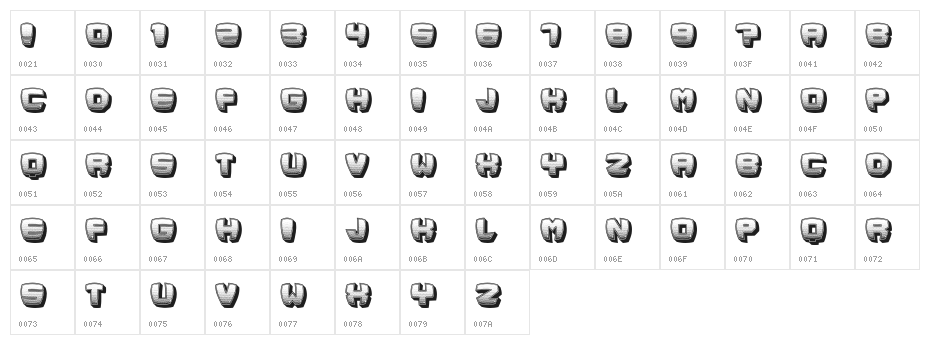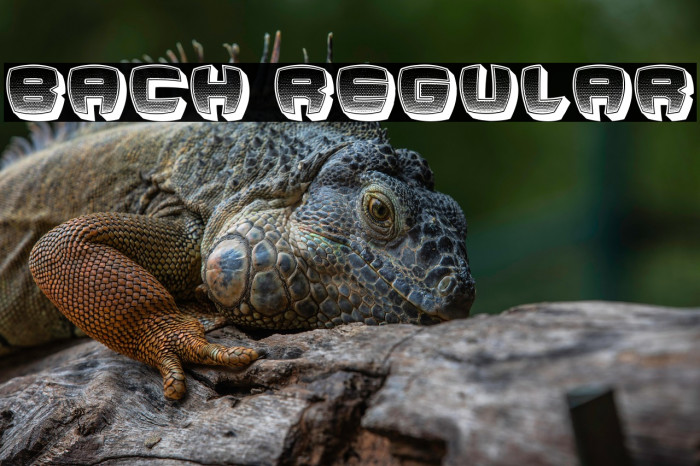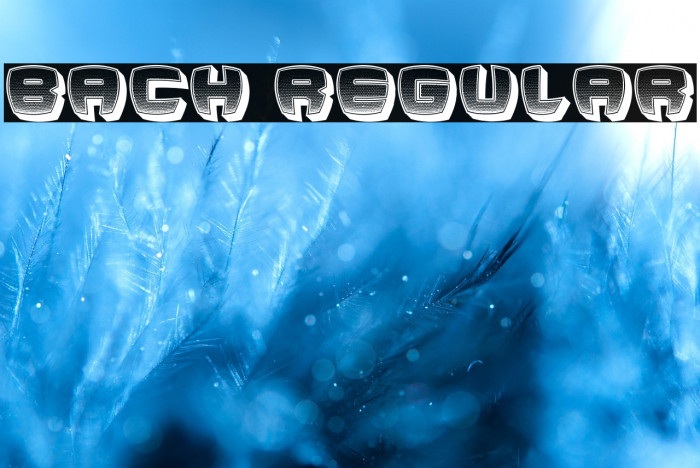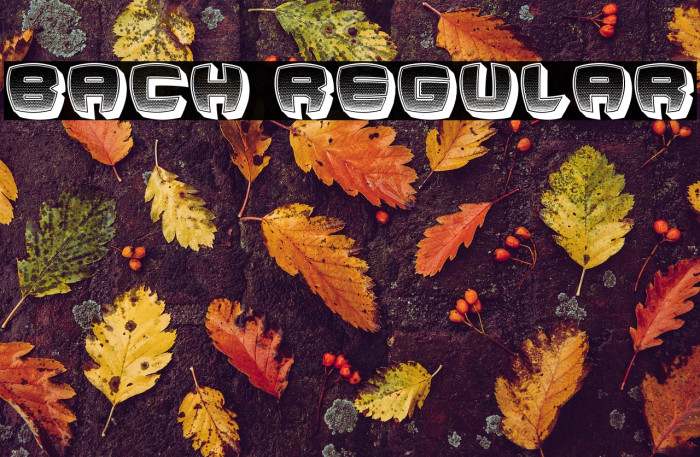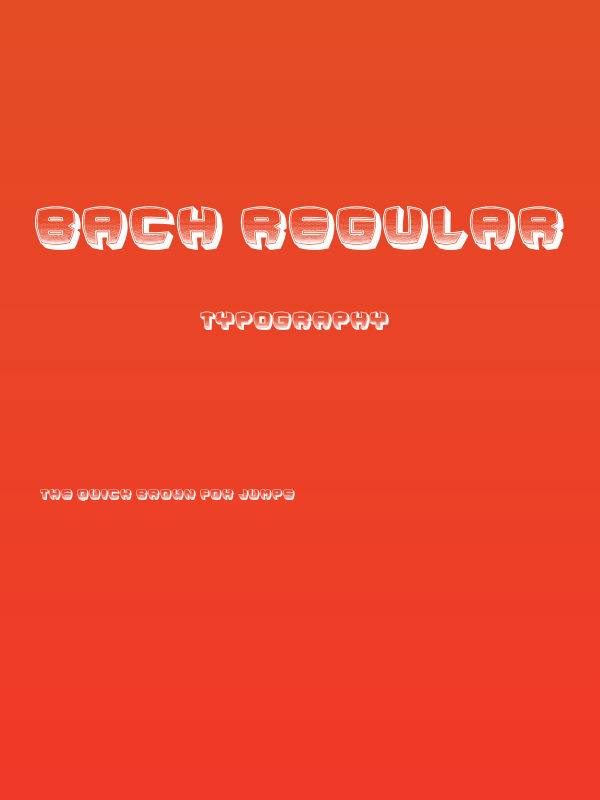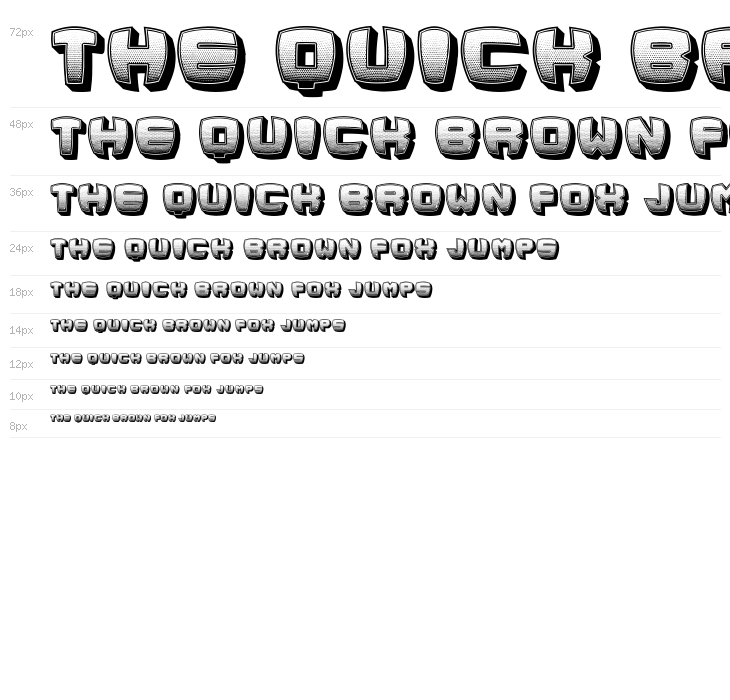
Bach Regular Font
Bach Regular Description
This font features a bold, three-dimensional style with a distinct shadow effect that gives it a dynamic and eye-catching appearance. The characters are rounded and robust, with a playful yet strong presence. The shading adds depth, making each letter pop off the page. This font is ideal for creating a sense of movement and energy, perfect for projects that require a bold statement. The consistent thickness of the strokes and the uniformity in the character design contribute to its cohesive and impactful look.
| Proposed Projects | Ideal for posters, logos, video game graphics, and any project needing a bold, energetic typeface. |